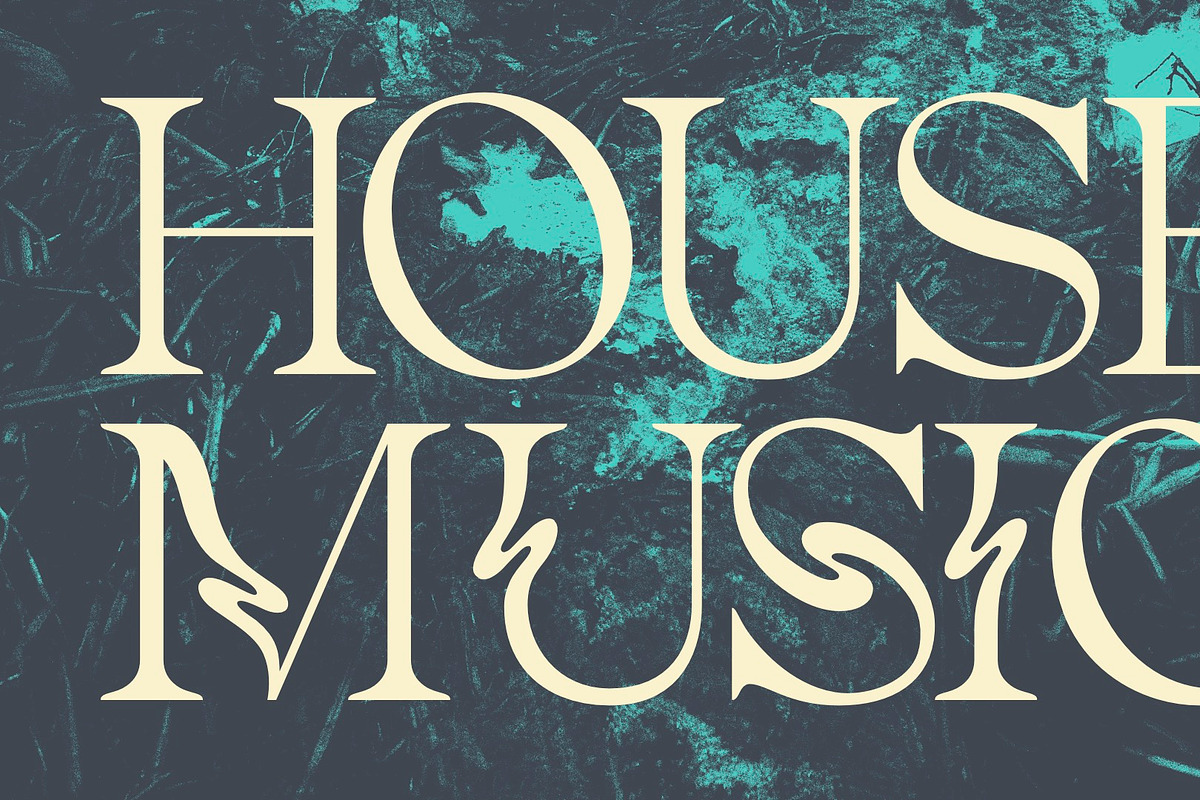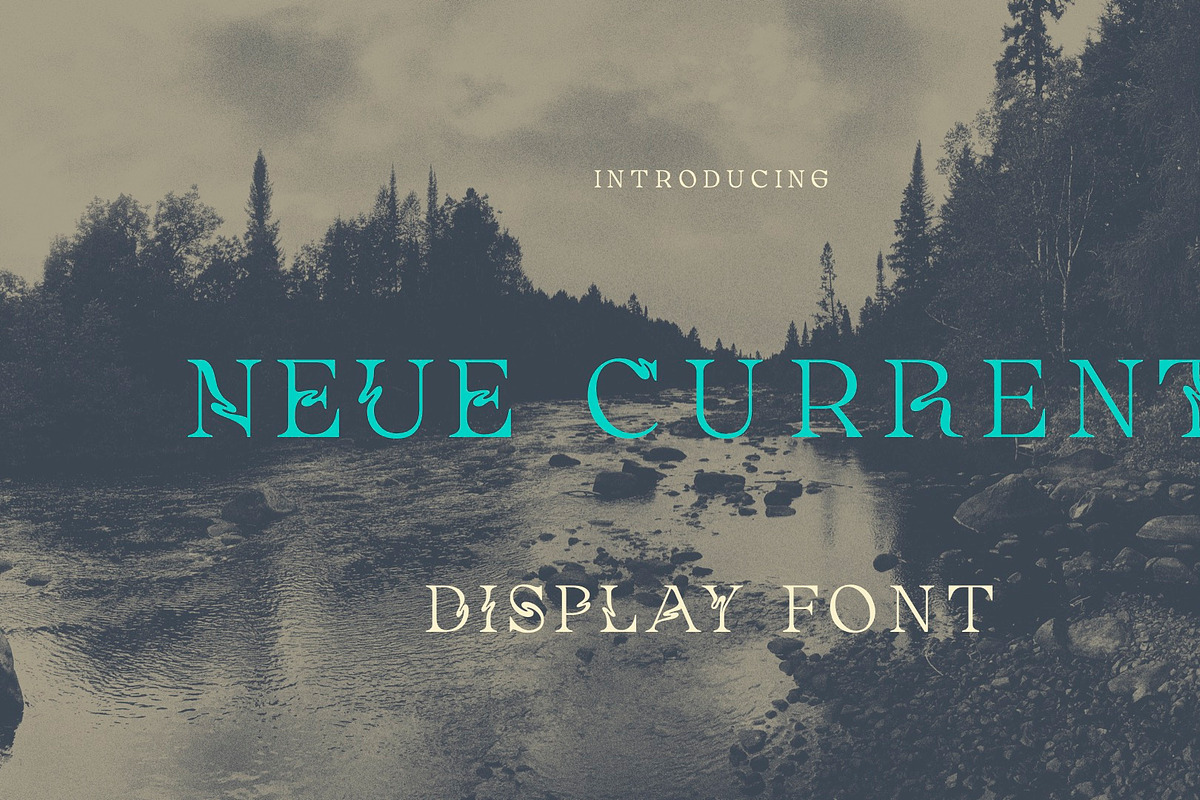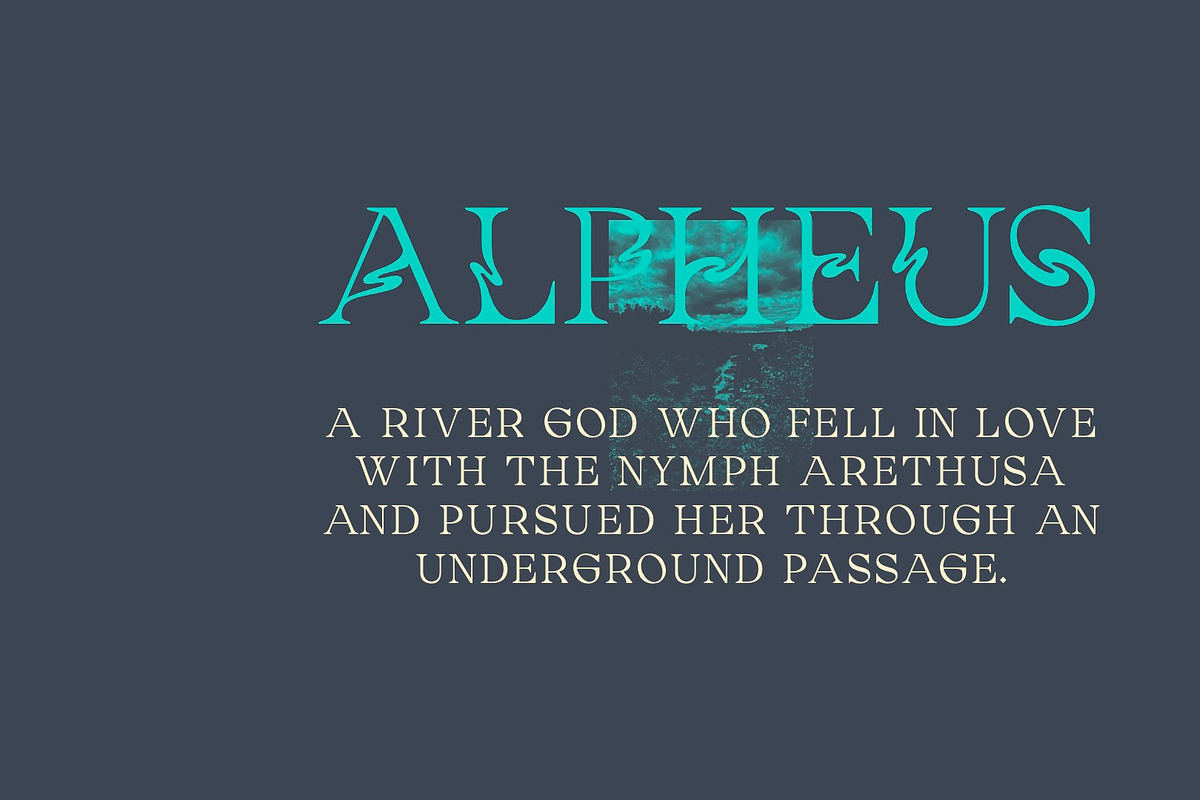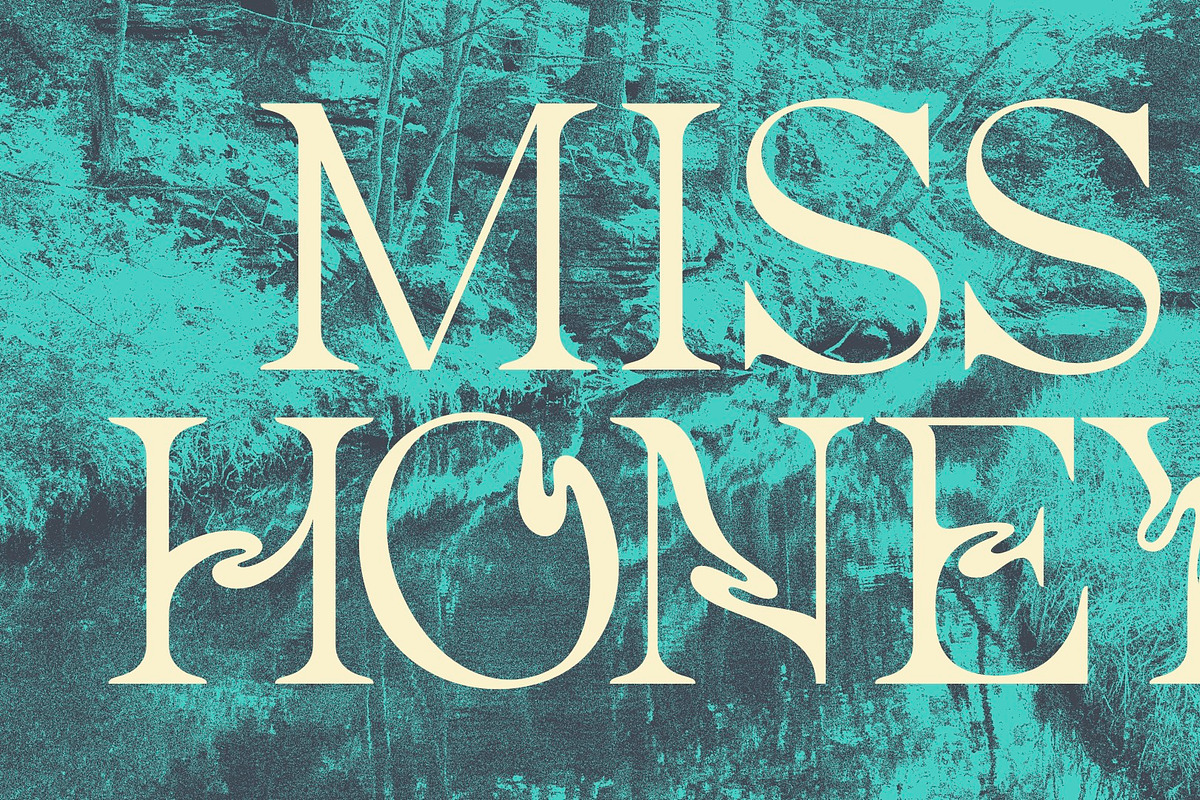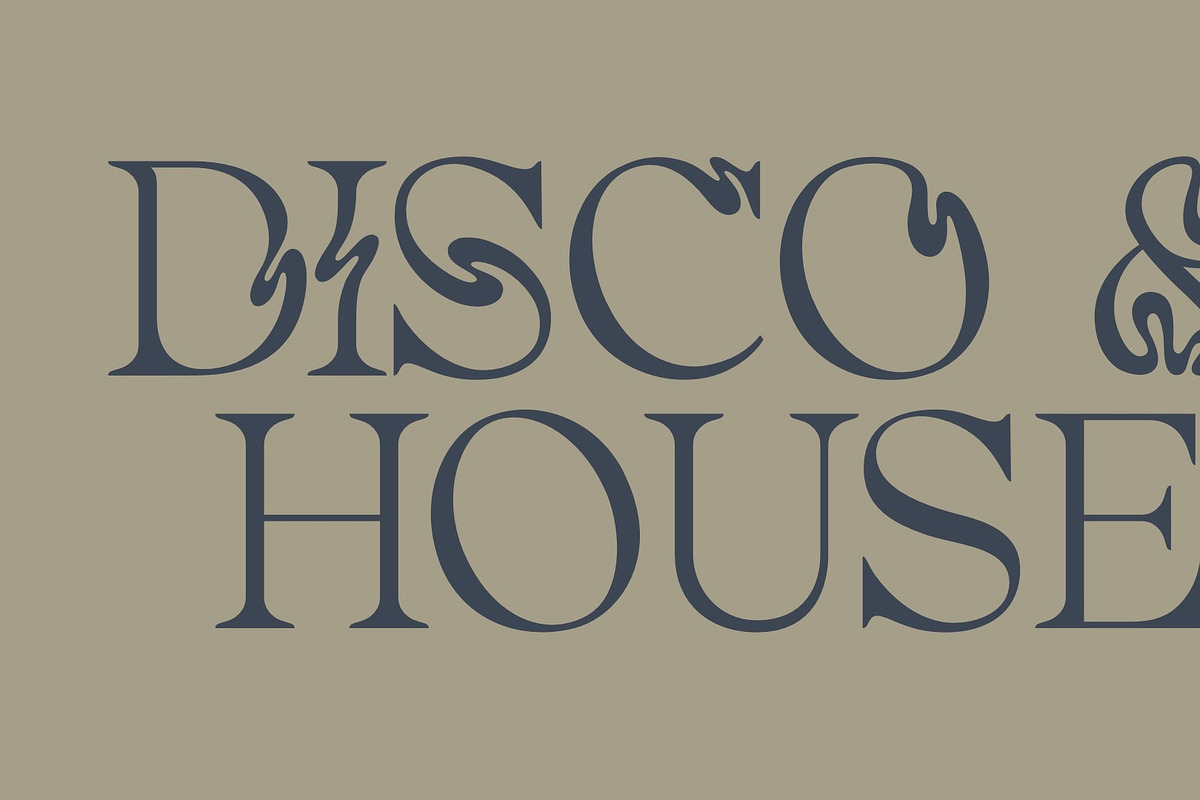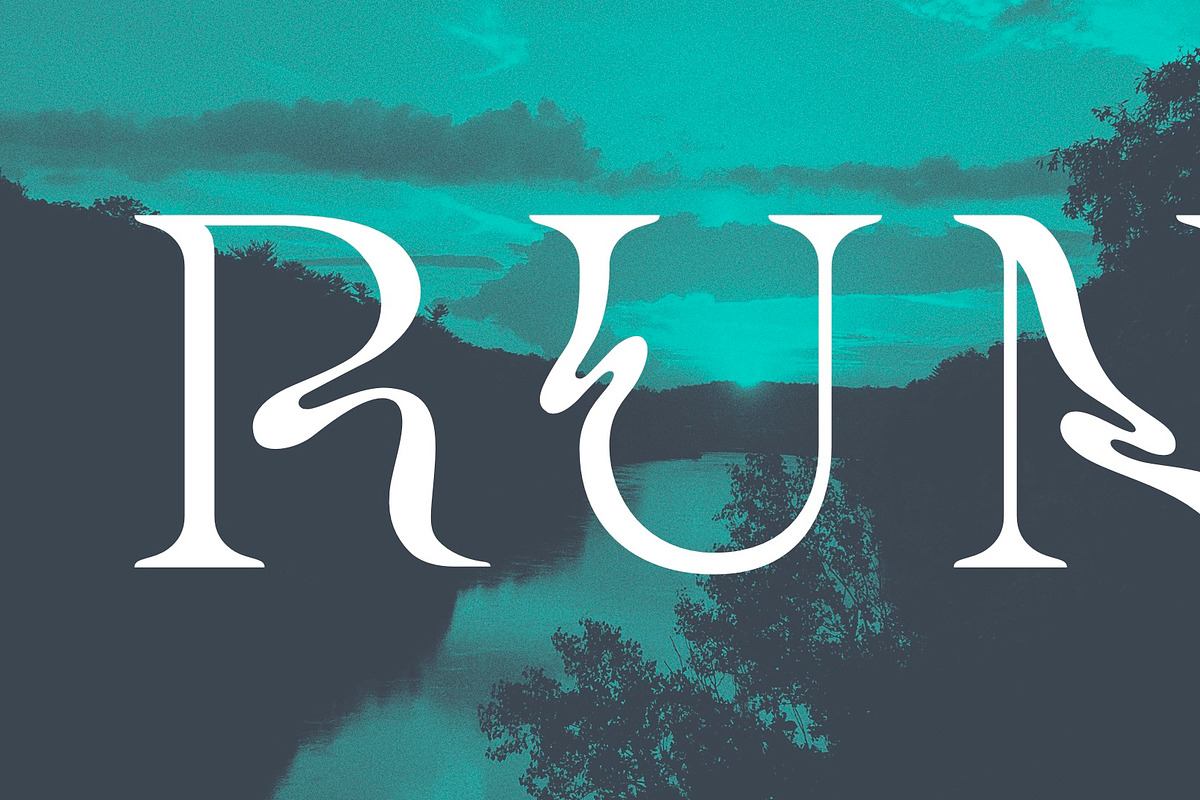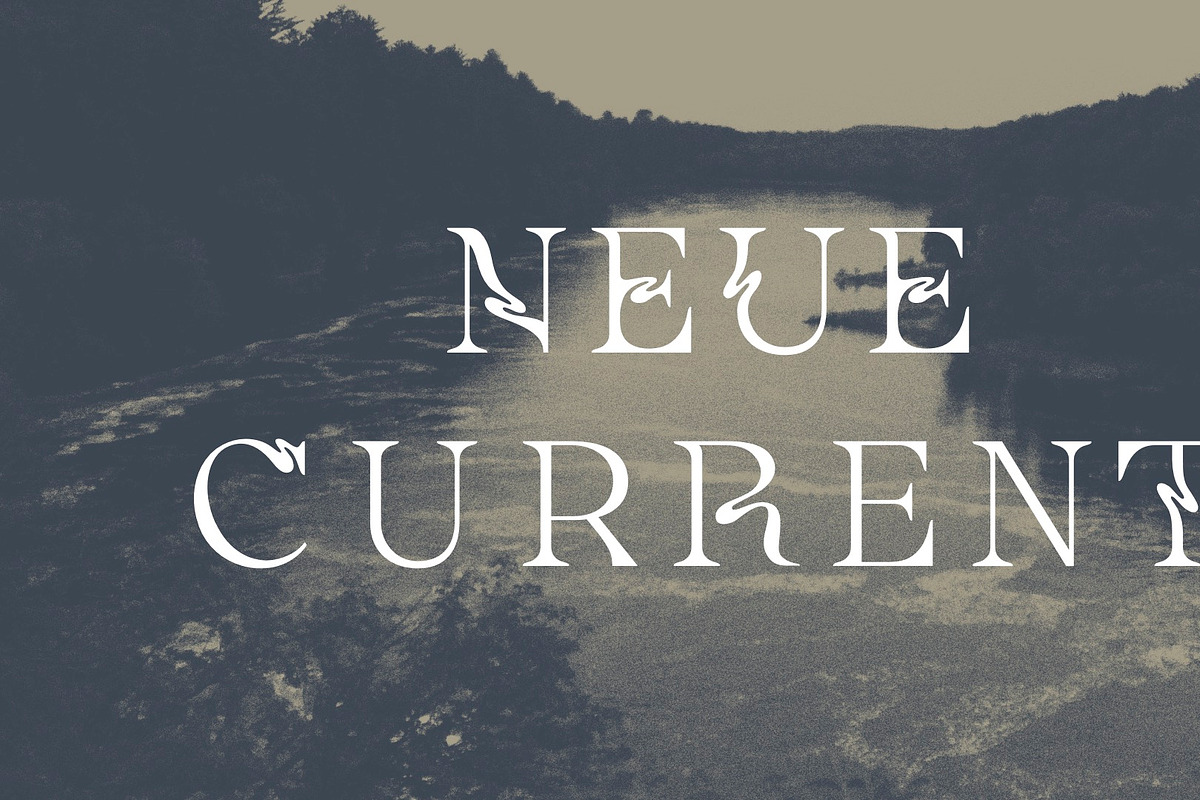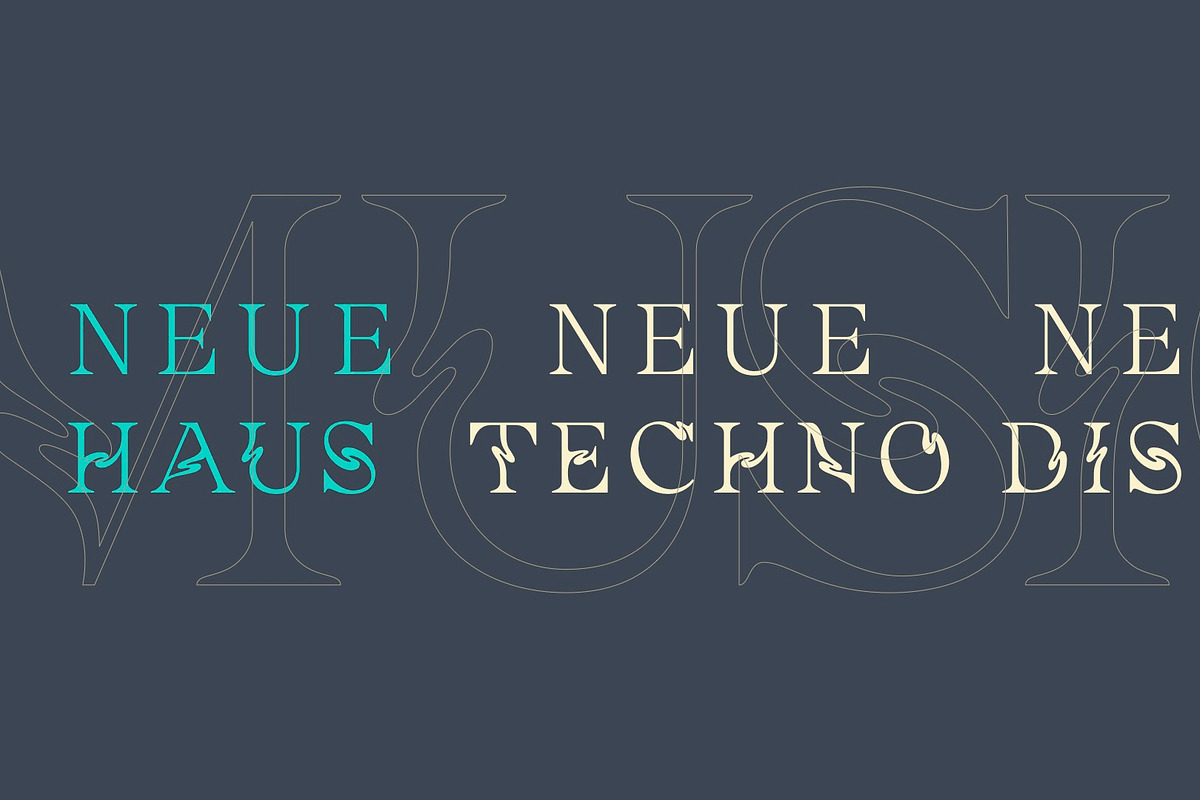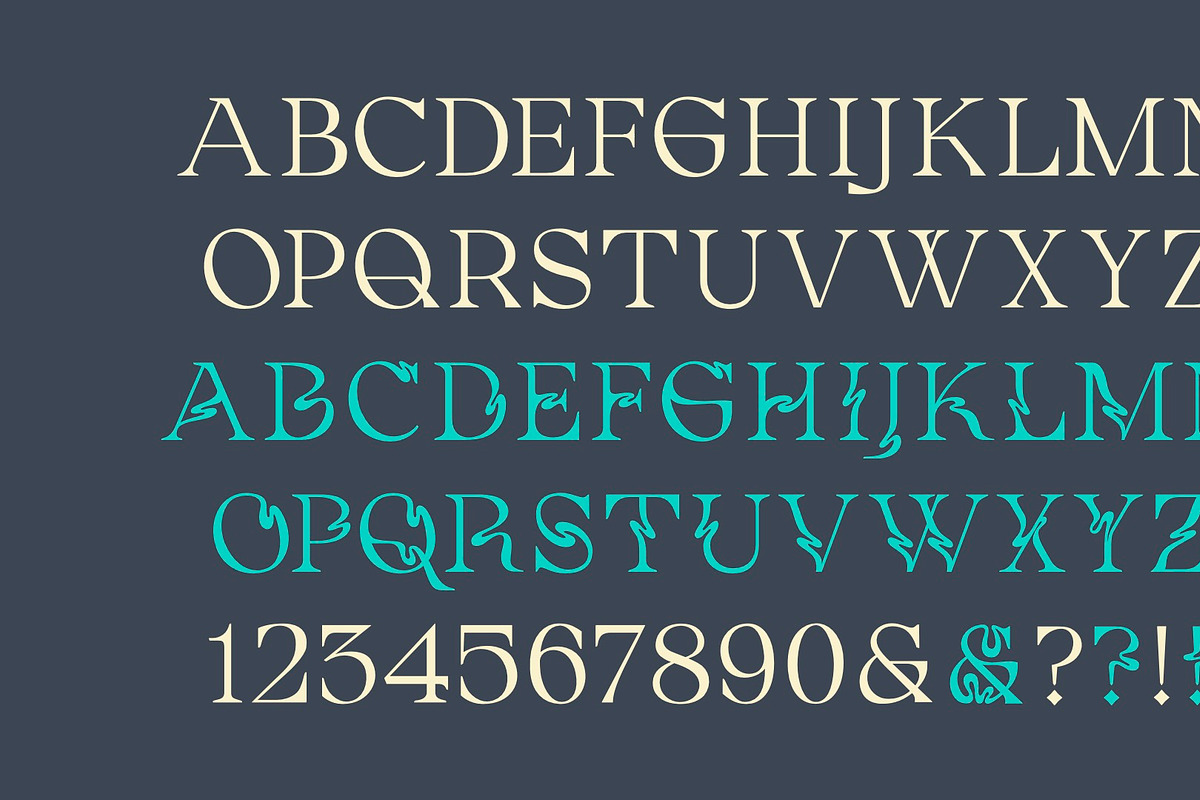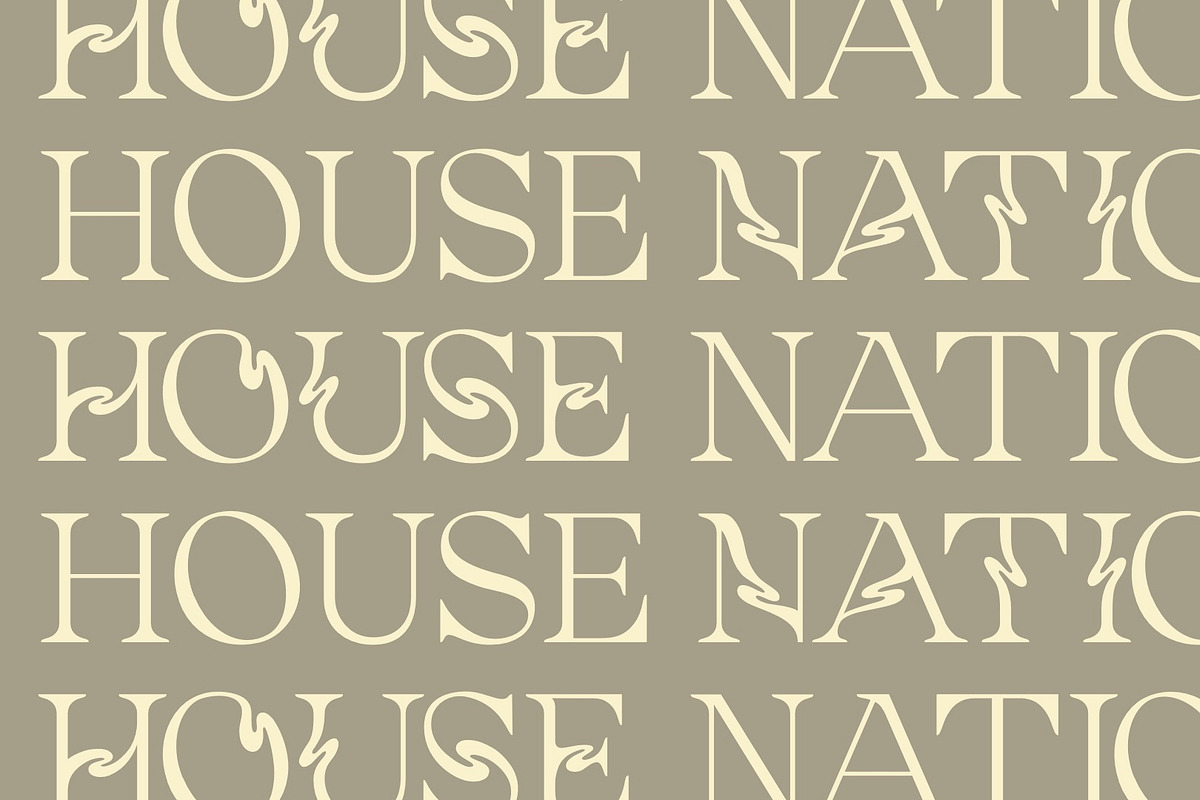
Neue Current Display
Introducing Neue Current, a display font that bridges the elegance of classical serifs with the flowing Art Nouveau inspired forms. Each uppercase letter features unique, river-current inspired flourishes that create an interesting contrast with its traditional forms. This dual-character system allows you to effortlessly blend formal structure with dynamic movement, generating compelling visual tension in your designs. Perfect for headlines, branding, and striking typographic compositions.